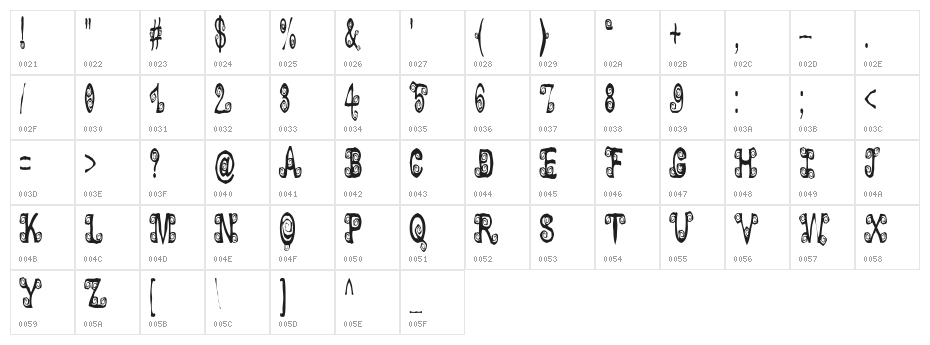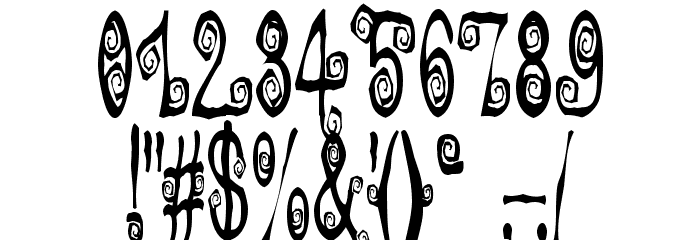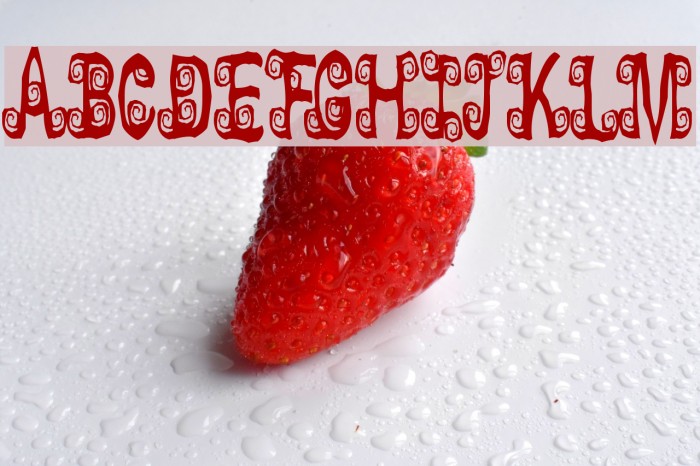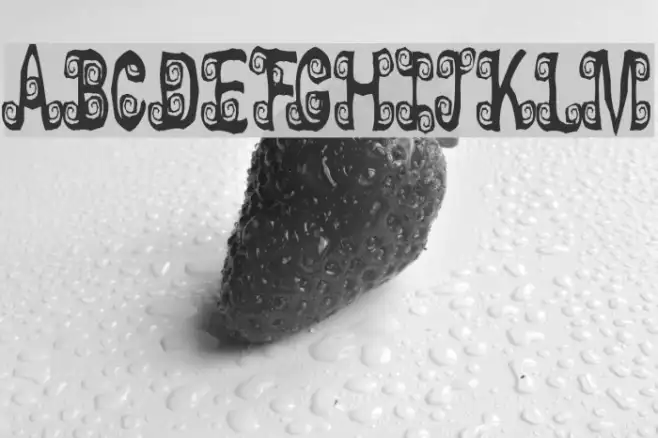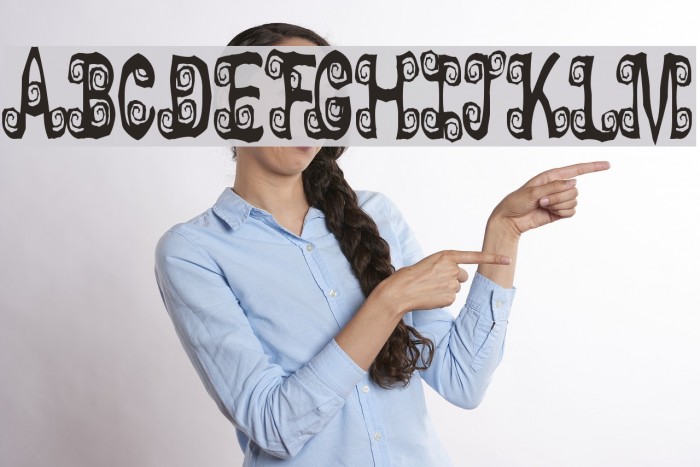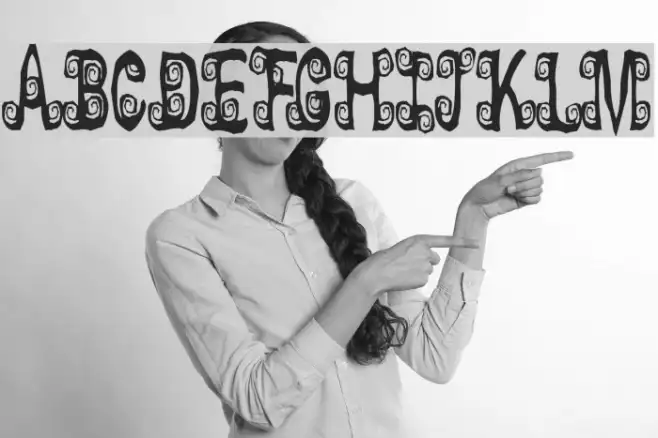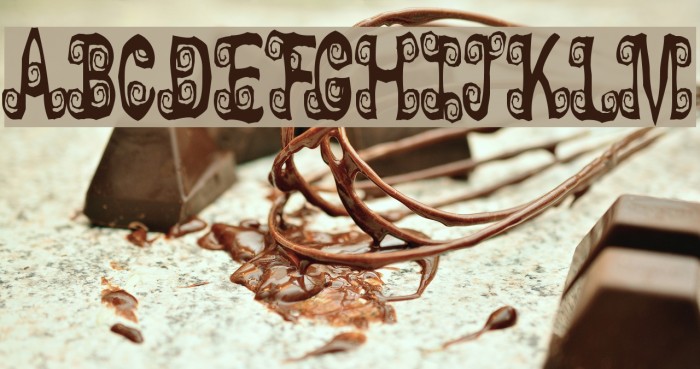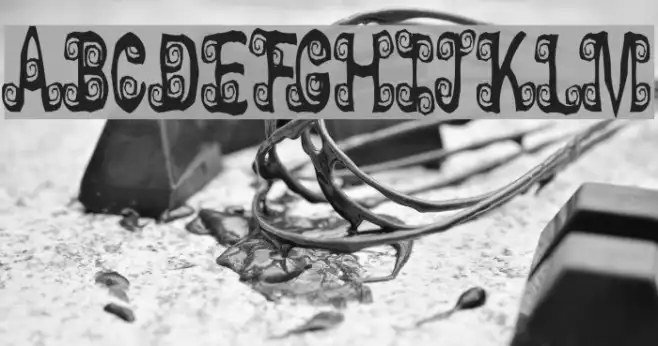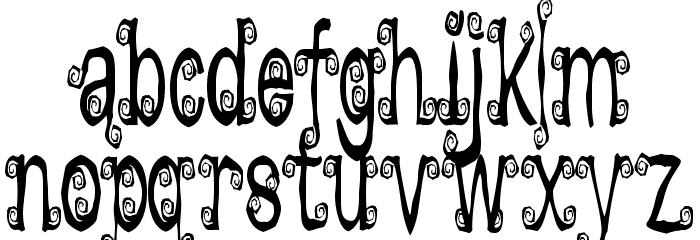
Lyarith Font
Lyarith Description
This font features a whimsical and decorative style, characterized by its playful curls and swirls integrated into each letterform. The uppercase and lowercase letters exhibit a consistent, artistic flair, making them stand out with their unique embellishments. Numbers and special characters follow the same ornate pattern, ensuring a cohesive look across all glyphs. The font's intricate design suggests a hand-drawn quality, adding a touch of fantasy and creativity to any project. Its bold presence and elaborate details make it ideal for capturing attention and conveying a sense of fun and imagination.